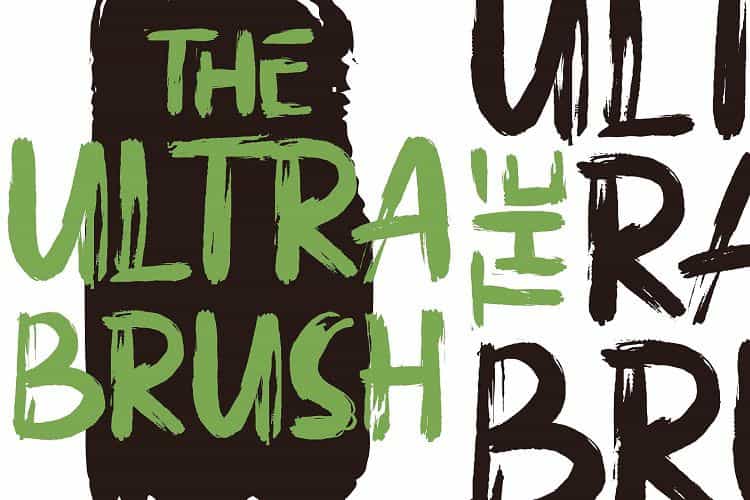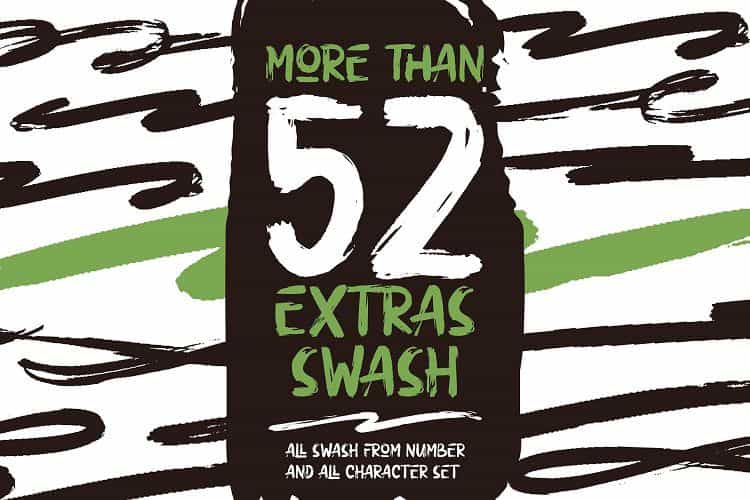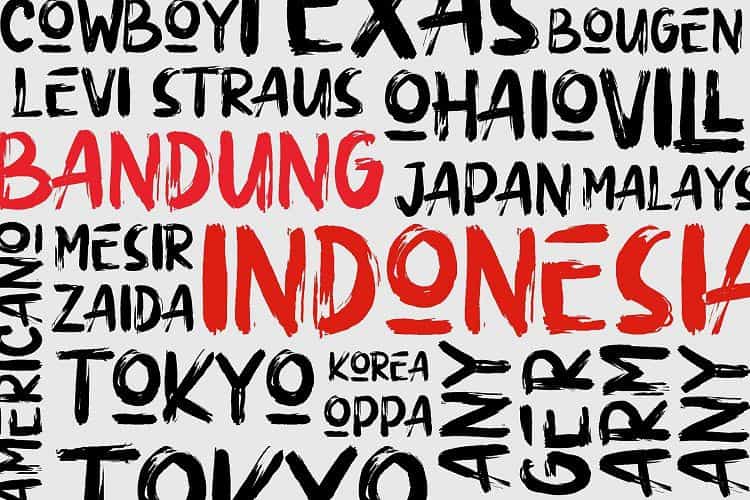
Discover The Ultra Brush Font, part of the Brush collection—a versatile and unique font perfect for adding a personal touch to your projects. Download it for free and enjoy crafting designs with style, from invitations to social media posts. This font is available exclusively for personal use, giving you the freedom to create without limits. Unlock your creativity with The Ultra Brush Font today!
The Ultra – This new brush font is so all-round that you can apply it to anything. Ideal for all your requirements and products. The Ultra Font designed and released by Garisman Std. THE ULTRA was created as a result of the curiosity of the maker who currently designs fonts for display.